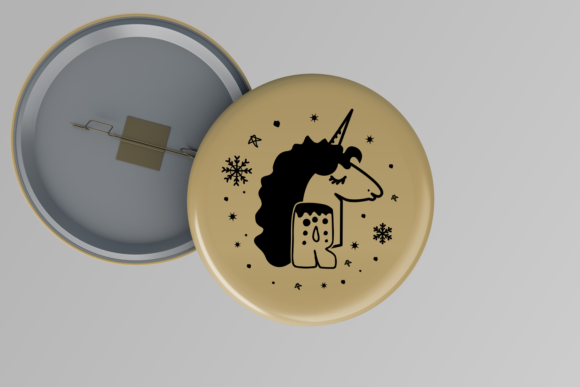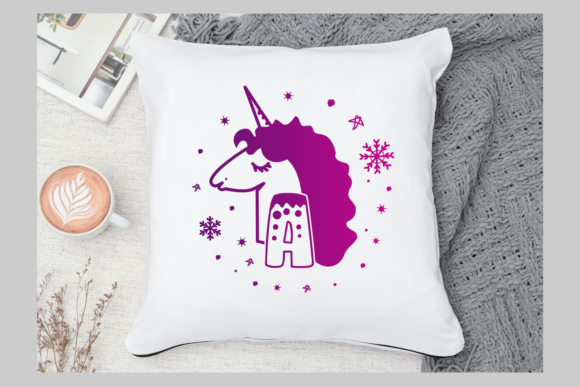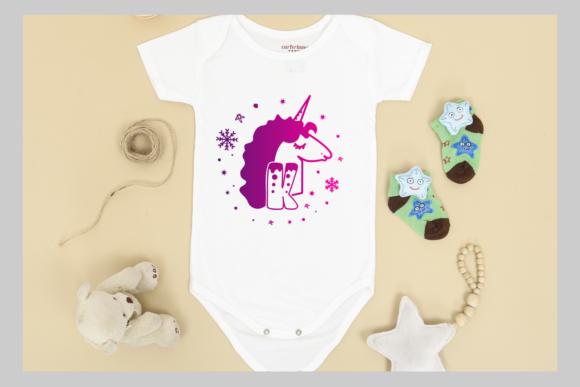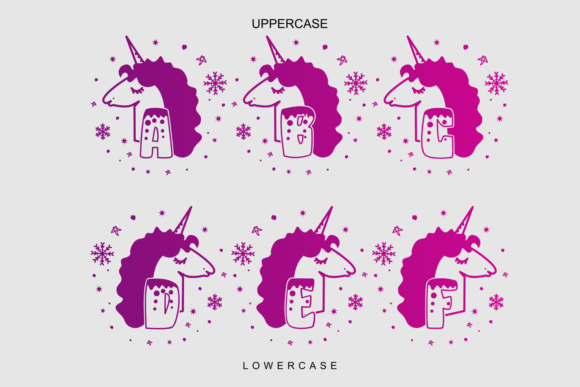
Introduction to Monogram Winter Unicorn Font
Monogram Winter Unicorn is a highly detailed and sweet decorative font.
Add this quirky-looking font to each of your children projects or favorite design ideas, and you will be astounded by the outcome .
Key Features of Monogram Winter Unicorn Font
Why Choose Monogram Winter Unicorn Font?